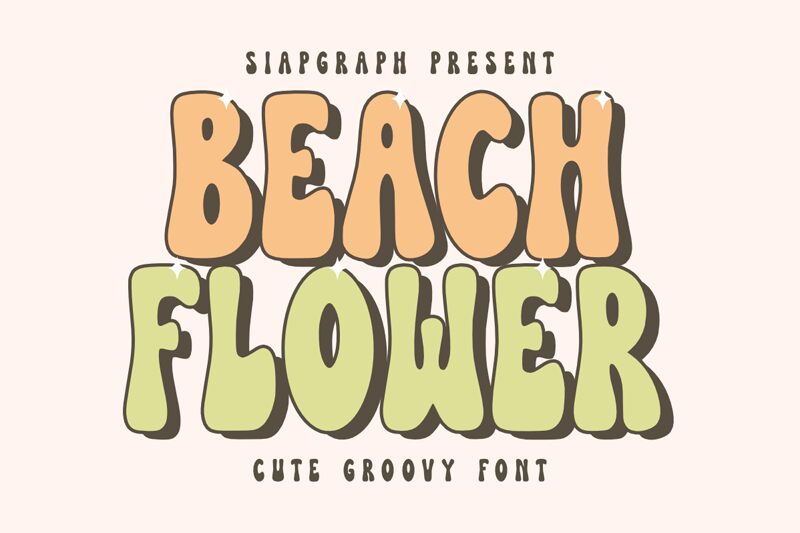
Beach Flower font by Siapgraph is a free font with a retro-inspired design. The font celebrates the beauty of flower motifs, smooth and eye-pleasing curves, and a glamorous letterform finish. Combining all of those along with soft serifs and a thick structure, the font reminds the beauty of the 1970s classic design. Tapping into the nostalgia trend of today, let each letter make their difference in your designs.
Combining the best of retro, decorative, and groovy elements, this font makes a stylish choice for a diverse set of projects. Personalize your outfits with beautiful typography on t-shirts, caps, handbags, and more. Let your personality shine through smartphone case covers, branding, logos, and food packaging! Enjoy using it in posters, social media posts, banners, and titles in magazines.